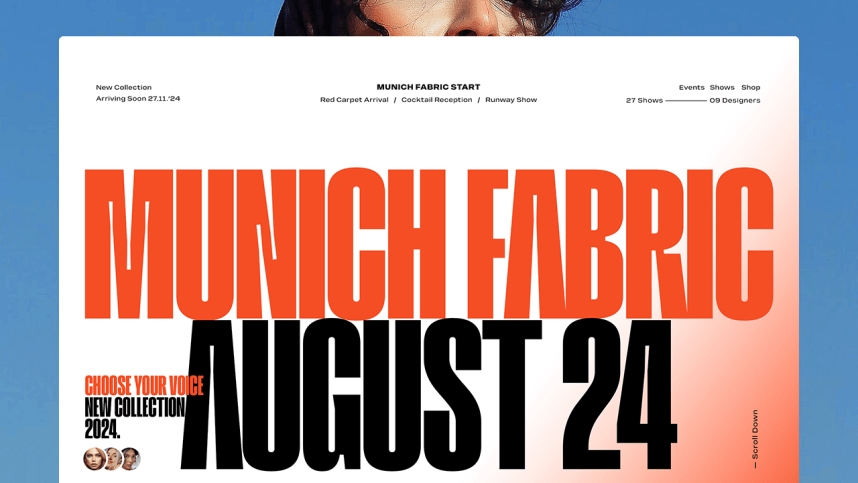
Raging Font Family
Raging Font Family, a condensed typeface with unlimited opportunities to create versatile design. Certain characters boast the boldness, but can also be tone down with simplified alternates RAGING offers two optical choices: Regular and Inktraps. Regular style provides a balanced and uniform appearance that maintains readability and aesthetic consistency. Inktraps to add a unique visual texture and character to the font, making it stand out with a more dynamic and edgy.